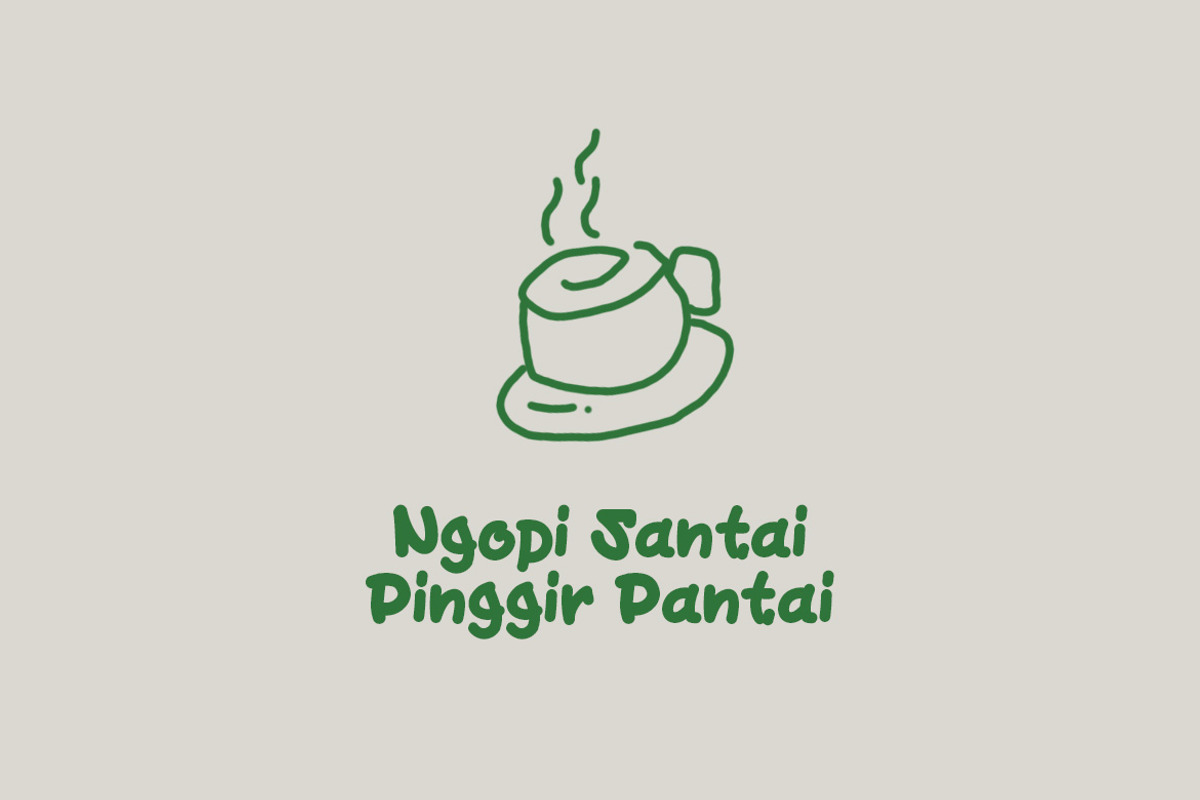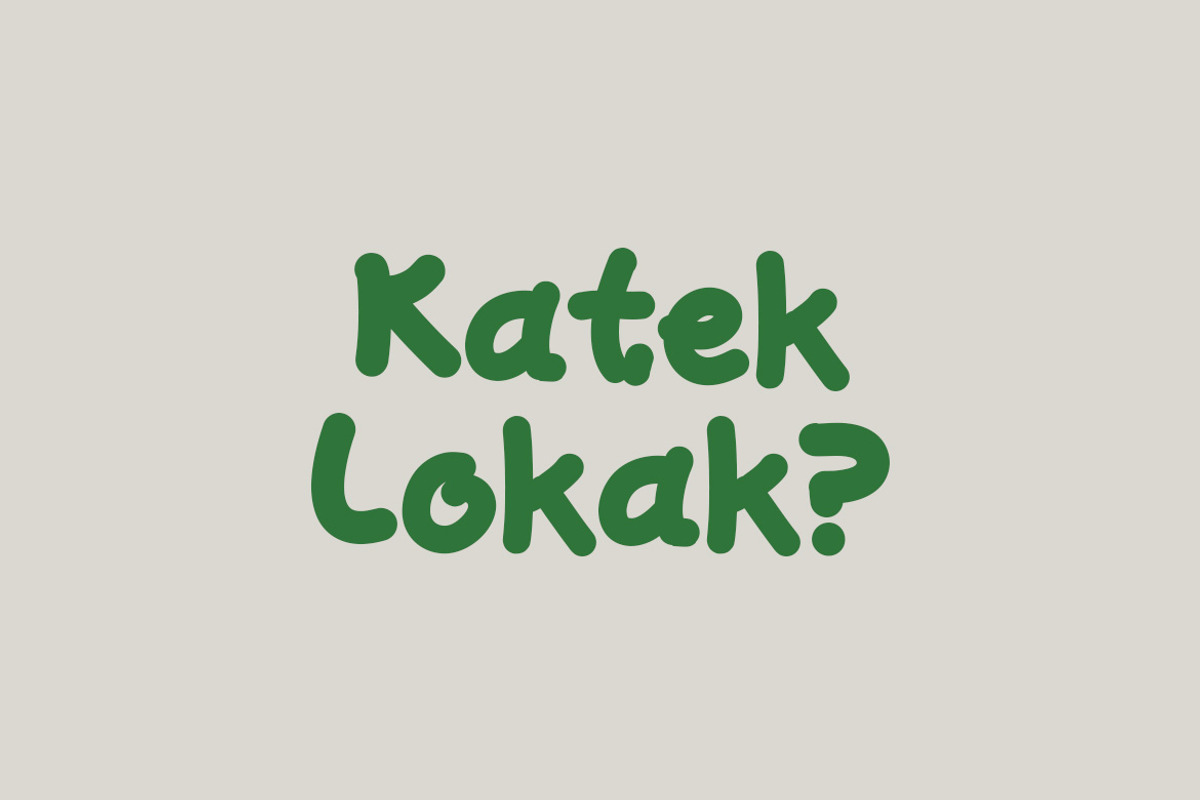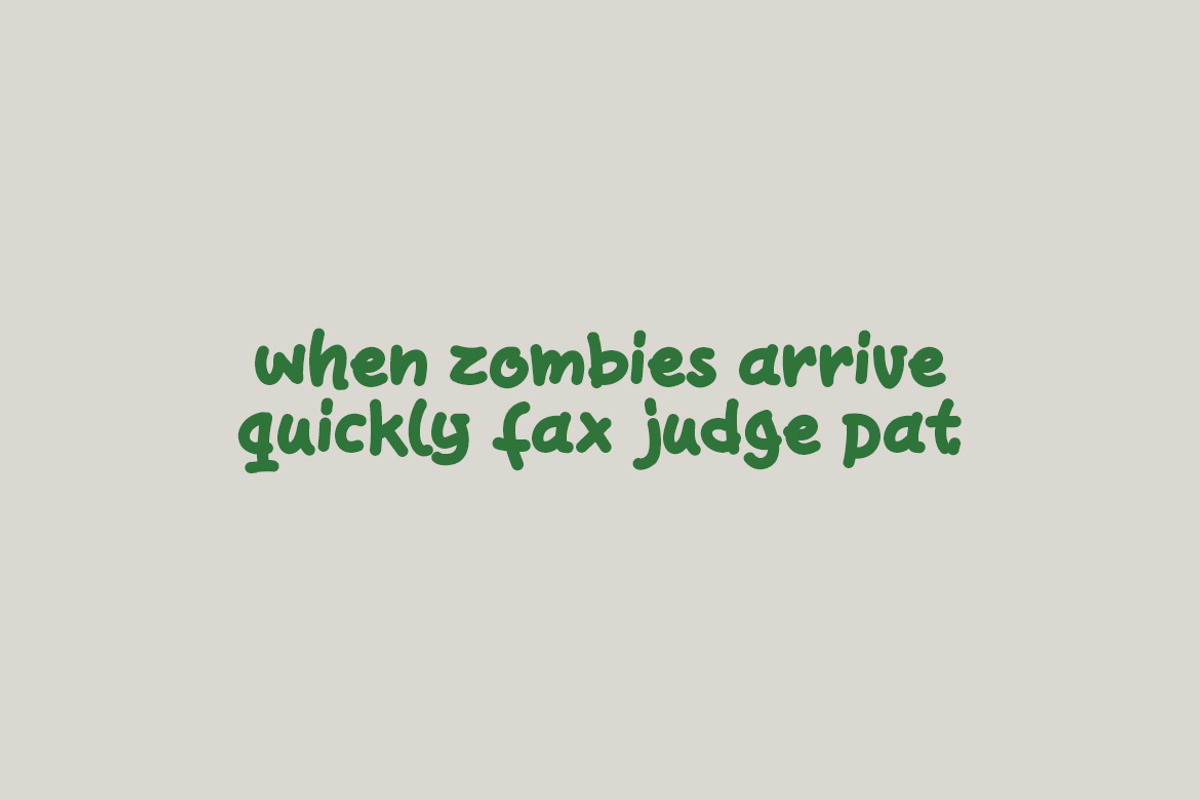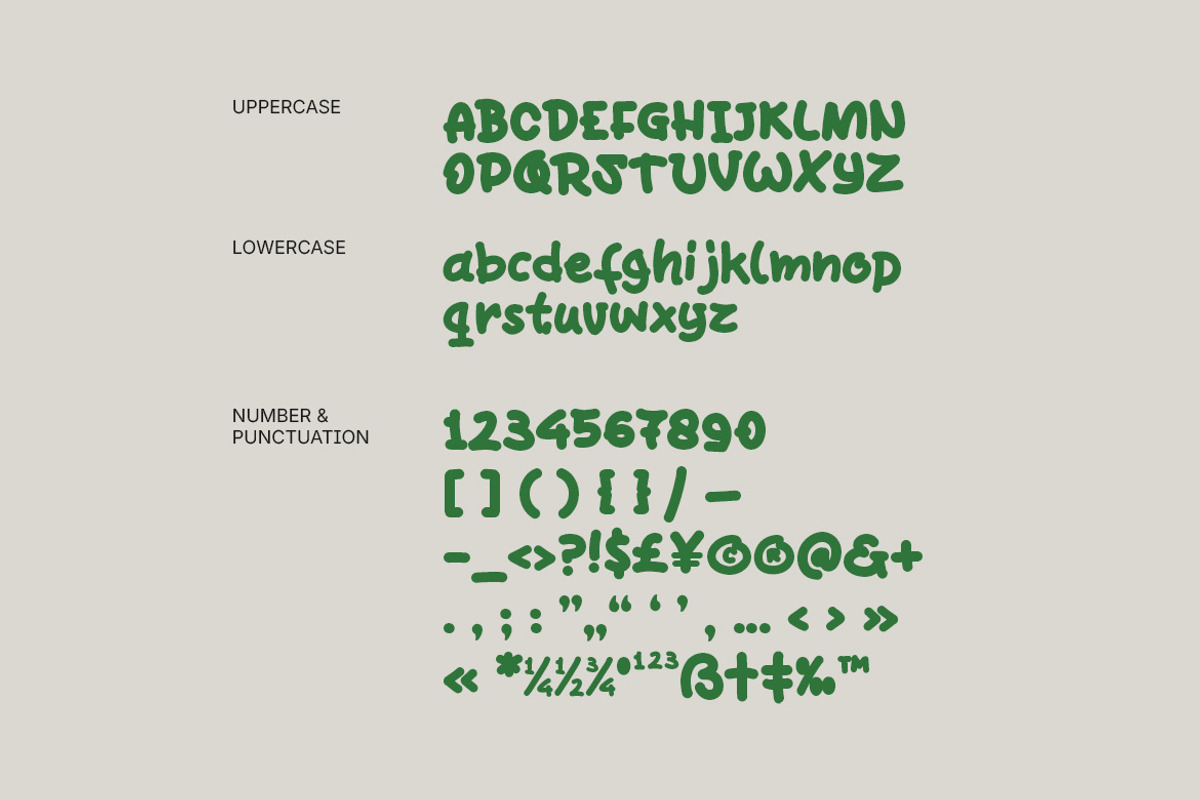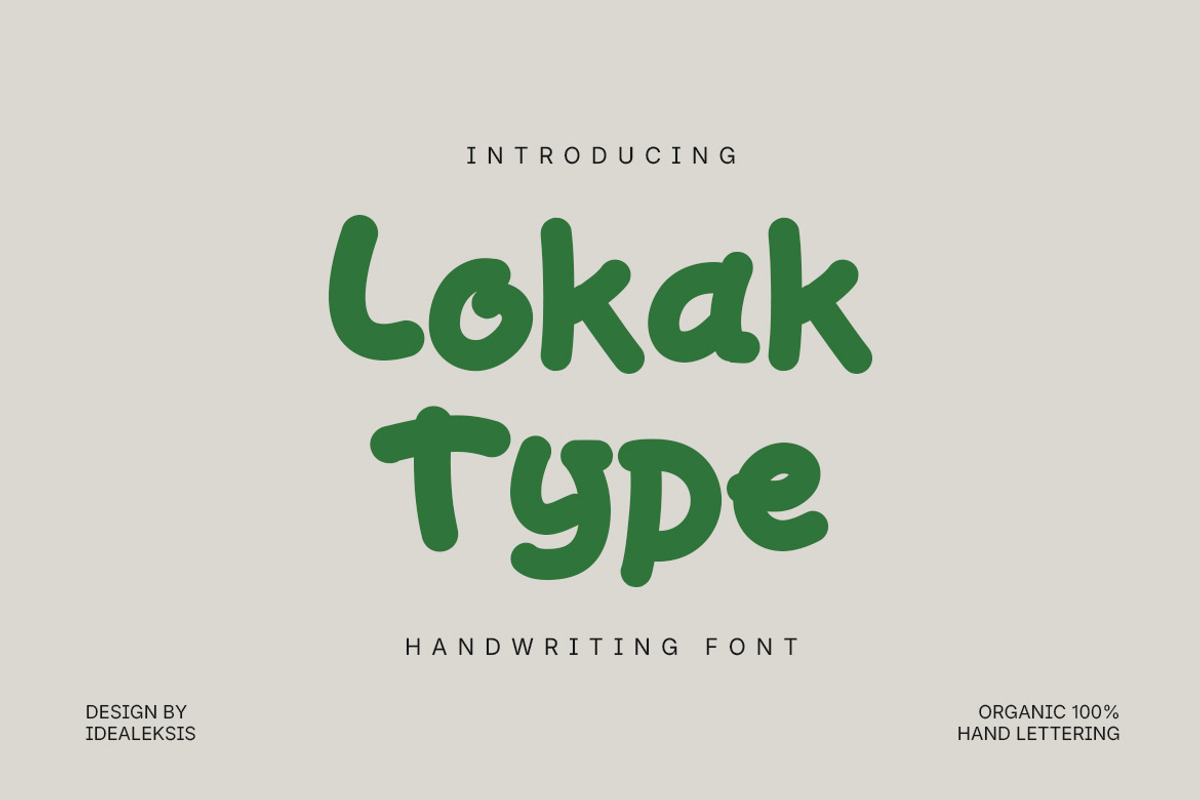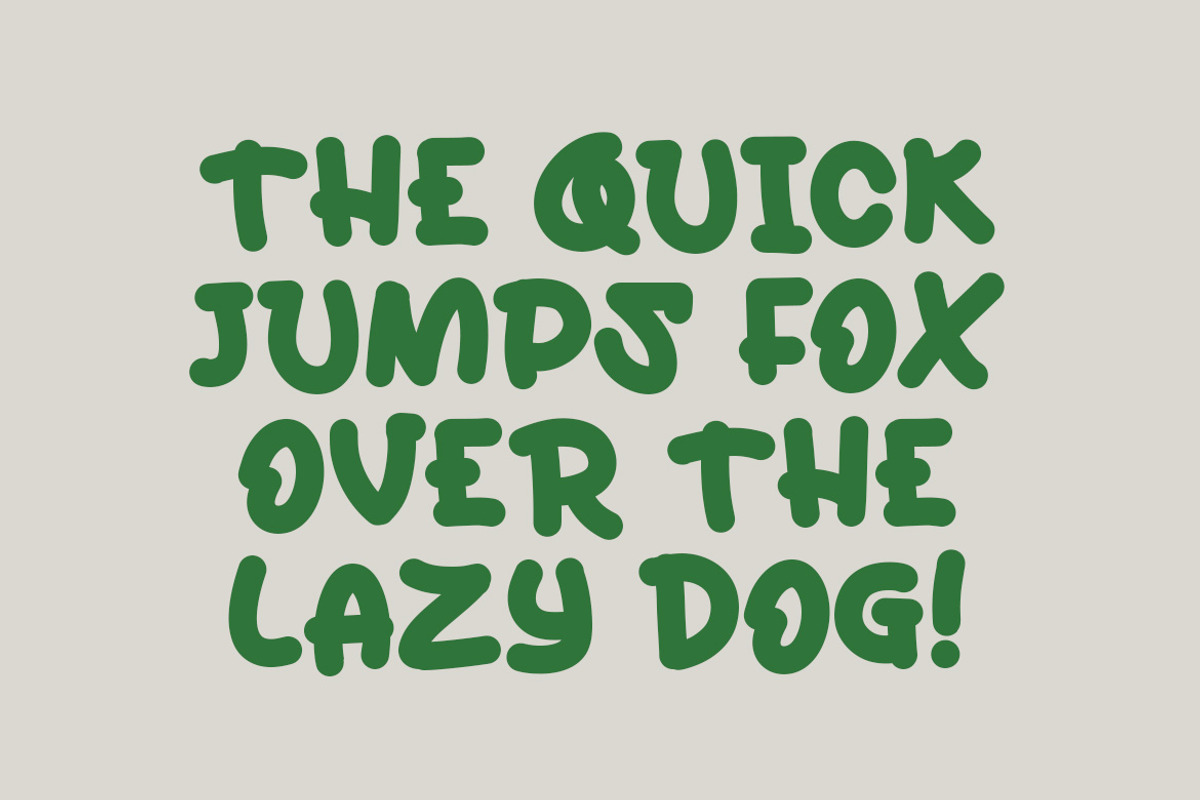
Lokak Type
Lokak Type is a bold, hand-lettered font characterized by its thick, rounded strokes and organic feel. The letterforms exhibit a playful bounce with soft terminals and a consistent weight that conveys a sense of friendliness and approachability. Its heavy, bulbous nature makes it ideal for display purposes where a natural, handmade aesthetic is desired. The design avoids sharp corners, opting instead for smooth curves that give the typeface a gentle, welcoming personality. This font is perfectly suited for branding projects, packaging for natural products, and creative editorial layouts that require a touch of human warmth.